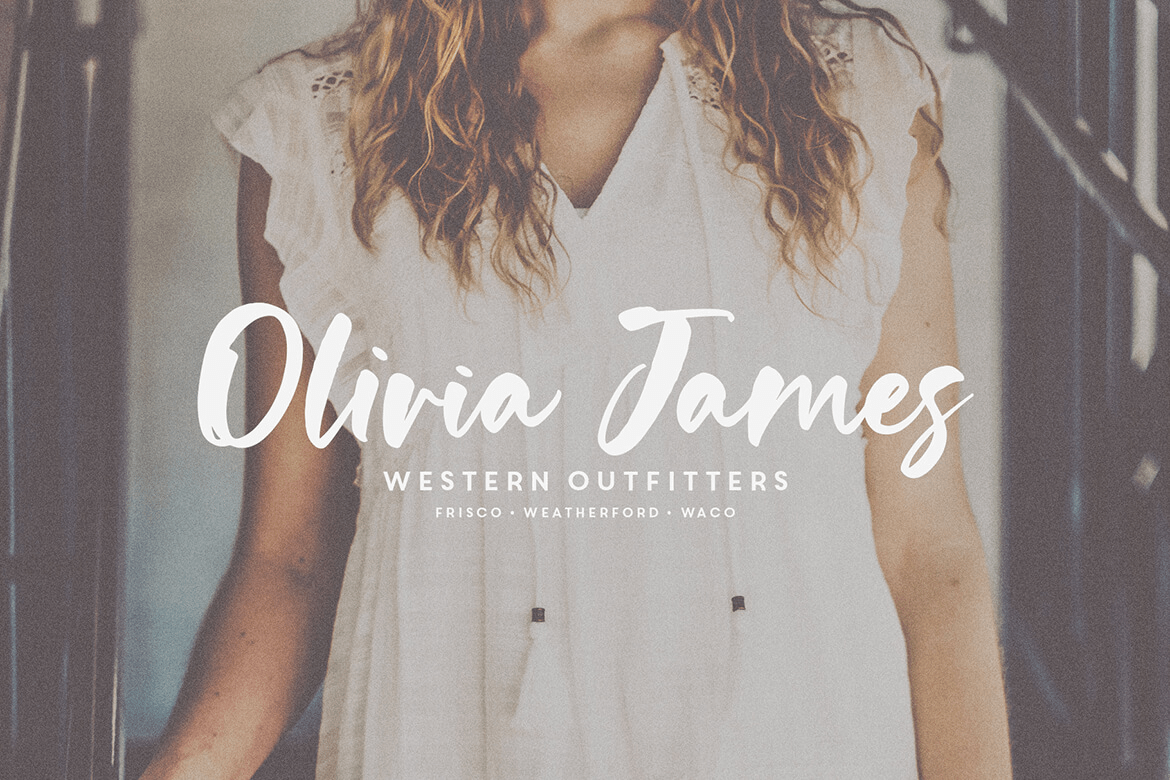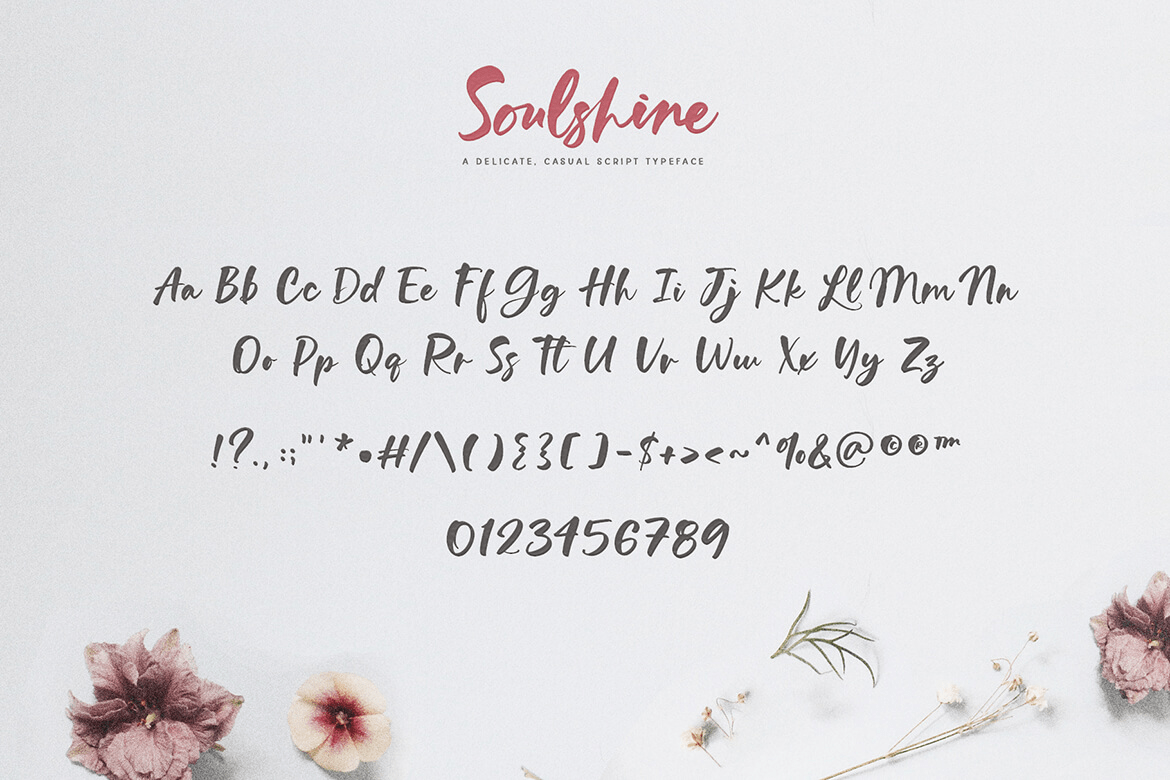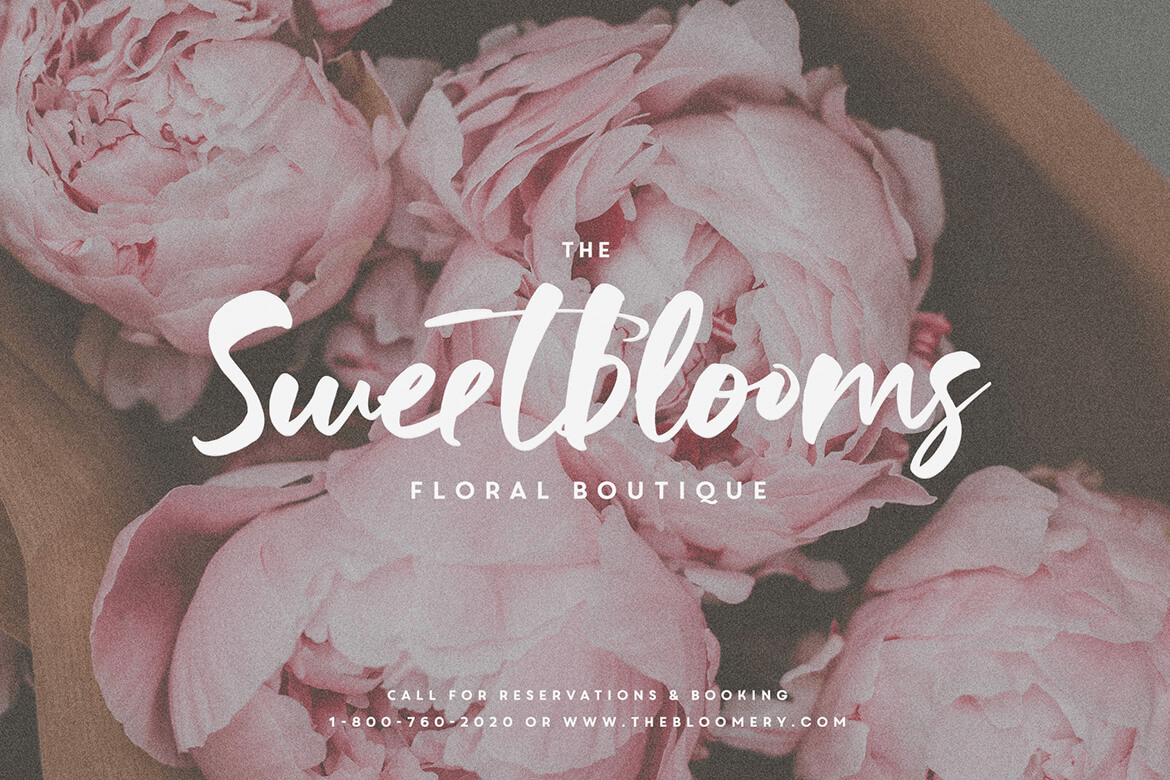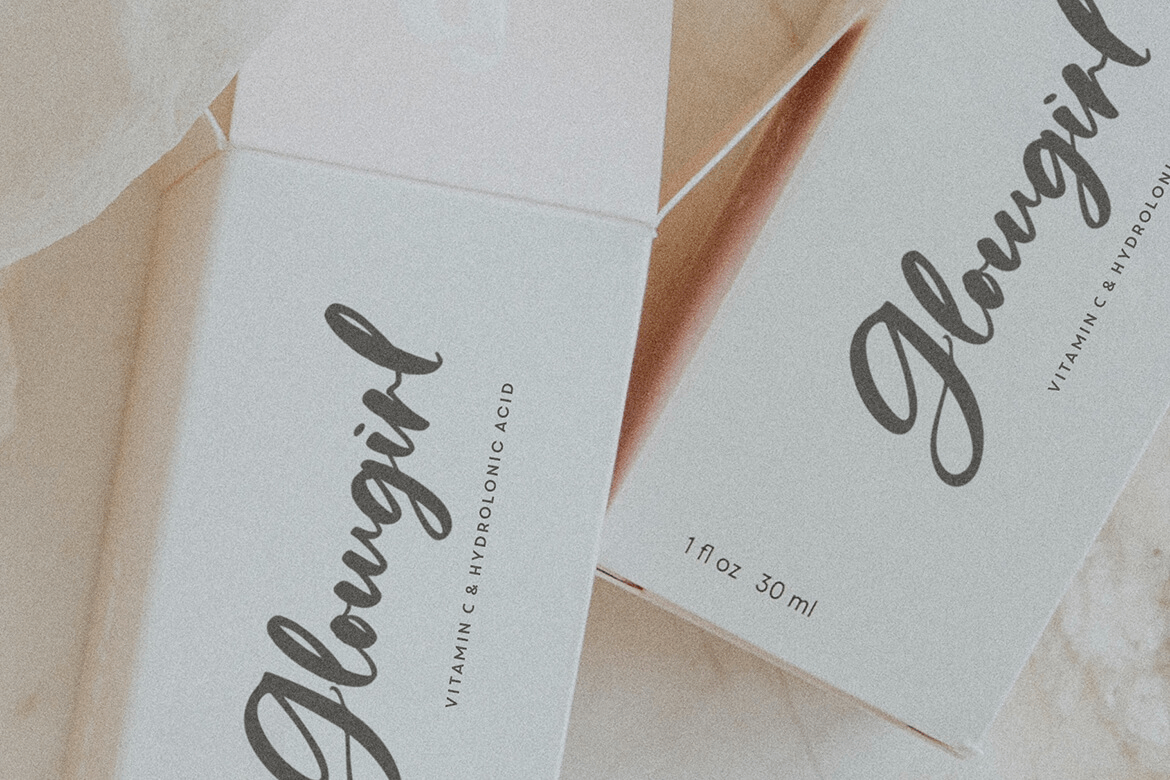
Introducing Soulshine, a thick, casual script with loads of ligatures and alternates! Use on headlines, websites, products, packaging, business cards, quotes, totes, stickers, logos, branding and so much more! It\’s fun, but oh so legible, and is the…